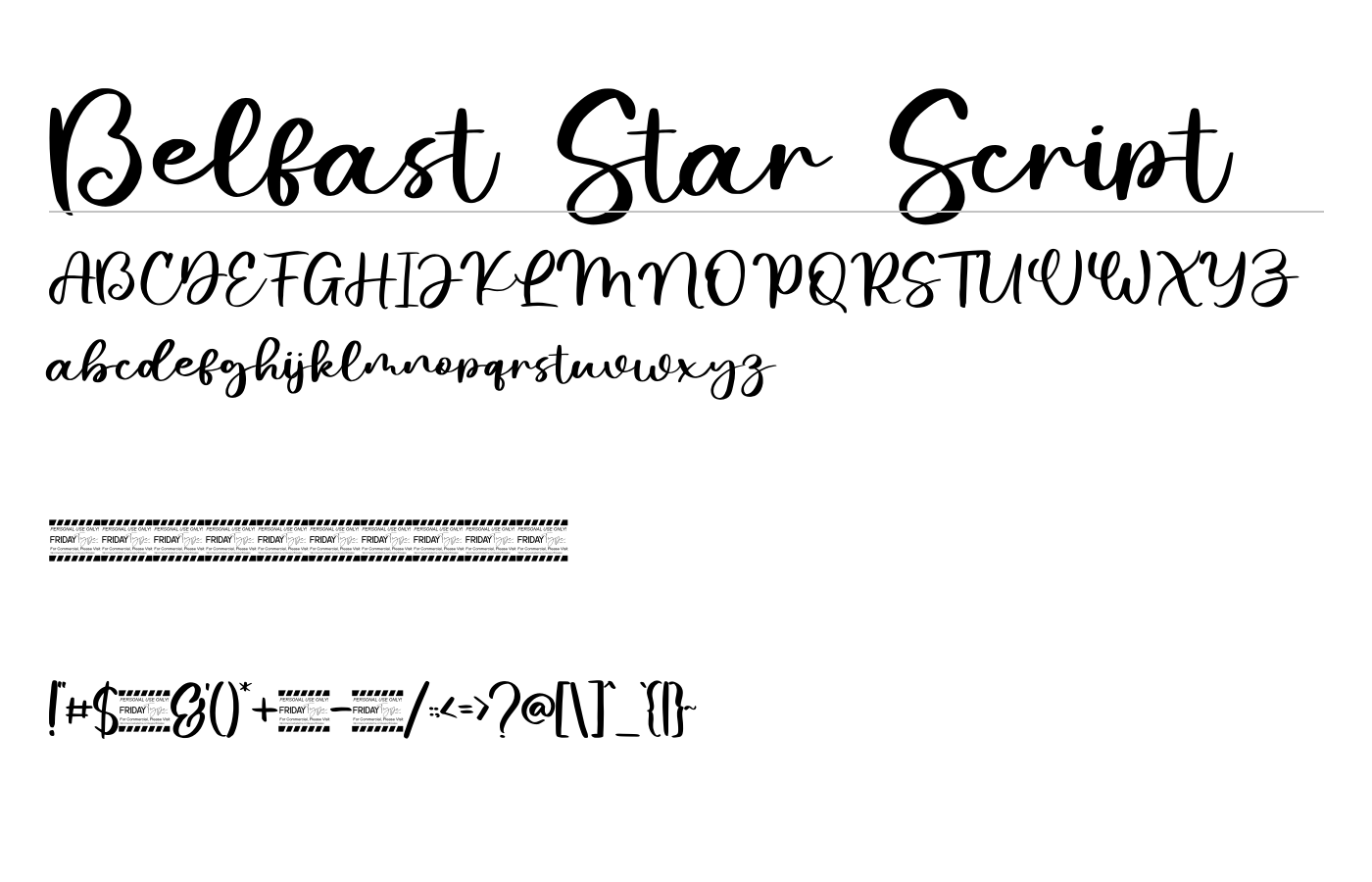
Belfast Star Script is a lively and elegant script font featuring smooth, flowing strokes with moderate contrast and a casual, handwritten feel. Its tall x-height and well-balanced letterforms make it highly legible while adding a personal, friendly touch, perfect for creative branding, invitations, and stylish headlines. This font works great where a charming, approachable personality is needed without sacrificing sophistication.
Belfast Star Script Font
About Belfast Star Script Font
| Font family | Belfast Star Script Font |
| Designer | Farida Kurniawan |